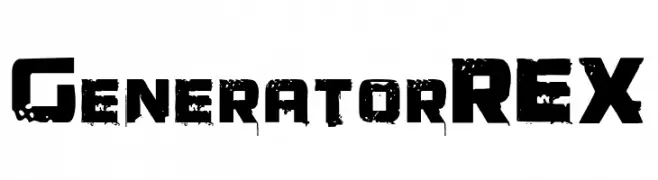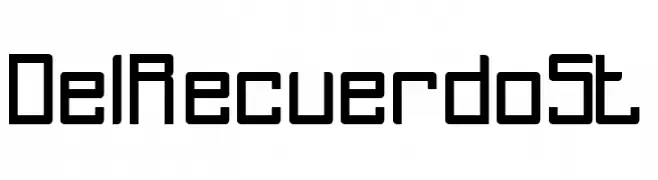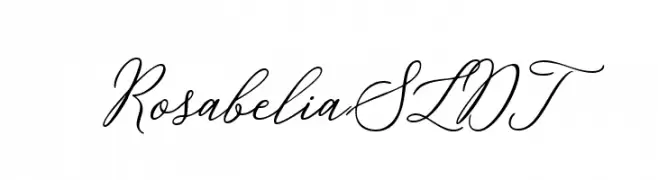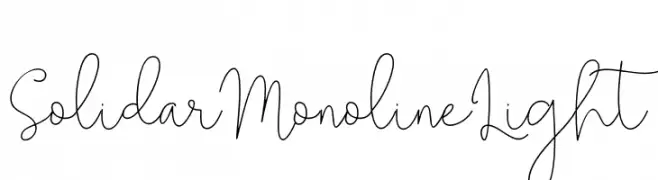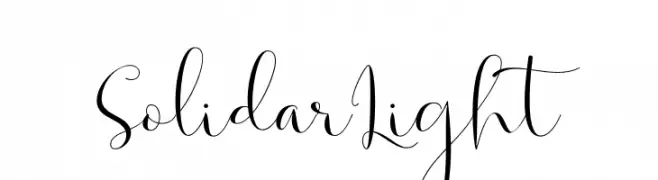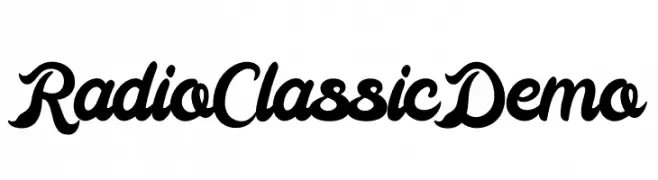
A bold, distressed font with a rugged, grunge-like appearance.
A geometric, modern font with consistent stroke width and angular design.
An elegant, flowing script font with a classic calligraphic style.
An elegant script font with flowing, interconnected cursive letters and ornate flourishes.
A clean, modern sans-serif font with uniform stroke width and balanced proportions.
A bold, modern sans-serif font with clean lines and strong visual impact.
A modern, clean sans-serif font with uniform strokes and excellent readability.
A stylish, handwritten font with elongated, flowing lines and a sophisticated appearance.
A delicate monoline script font with elegant, flowing cursive letterforms.
An elegant, flowing script font with graceful loops and cursive strokes.